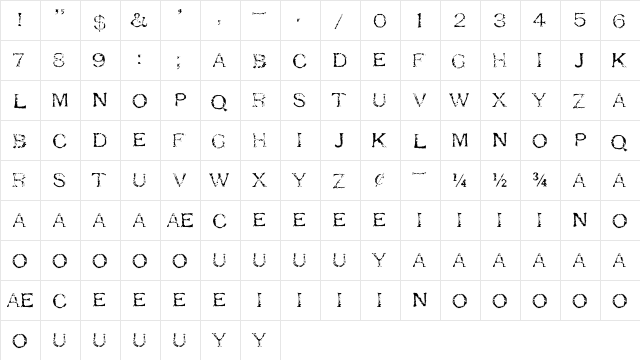
Respess Capitals Light Light
| Foundry | l'AbΣΤarienne |
| Designer | l'AbΣΤarienne |
Design Context for Respess Capitals Light Typeface
Respess Capitals Light takes a measured approach to typography — its balanced proportions and neutral character make it a reliable workhorse for both digital and print work. The delicate stroke weight brings airiness and refinement to layouts.